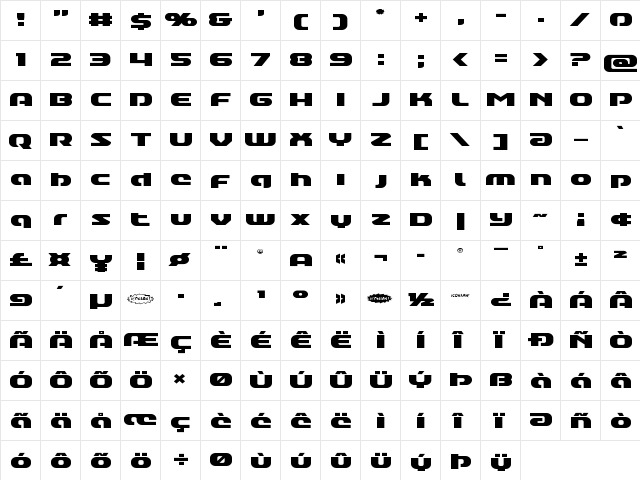
Annapolis Lower Case Expanded Expanded
Design Context for Annapolis Lower Case Expanded Typeface
Annapolis Lower Case Expanded is a composed and adaptable typeface that performs quietly and consistently across a wide range of design contexts.